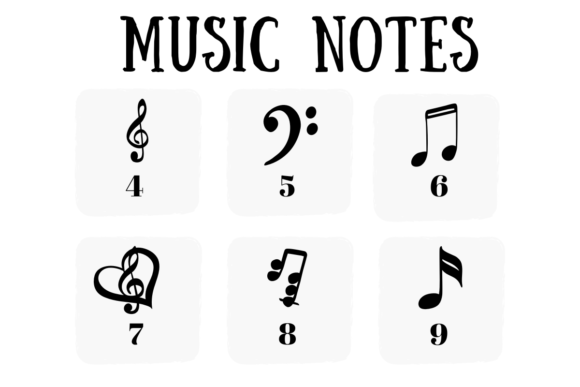
Music Notes Font
Music Notes is a special type of font called a dingbat font. Instead of letters and numbers, it has pictures of musical symbols and notes. When you type with this font, you see images like treble clefs, bass clefs, and different musical notes instead of regular text. It’s useful for adding musical decorations or symbols to your projects.